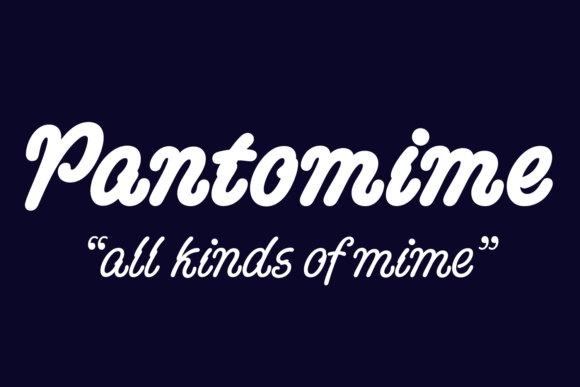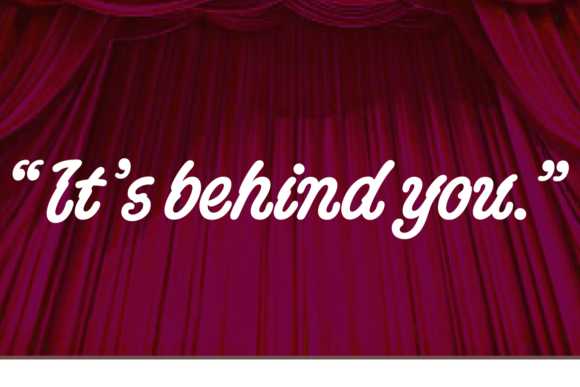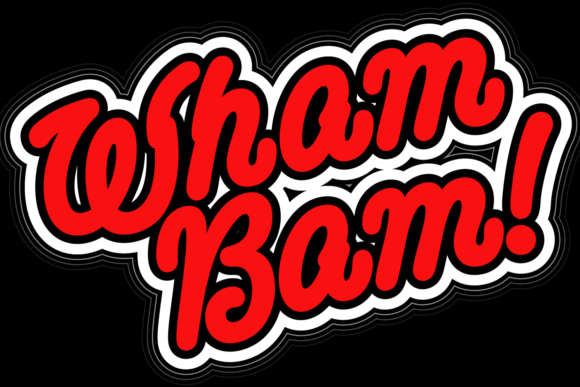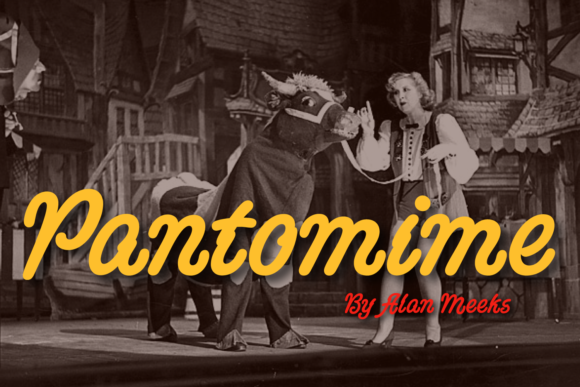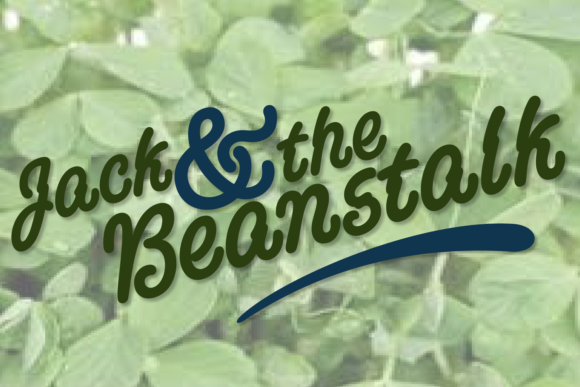
Pantomime Font
About Pantomime Font
Pantomime is a cursive, gorgeous and retro styled handwritten font. This font reads as strong, confident, and dynamic and can add tons of nostalgic character to your designs.